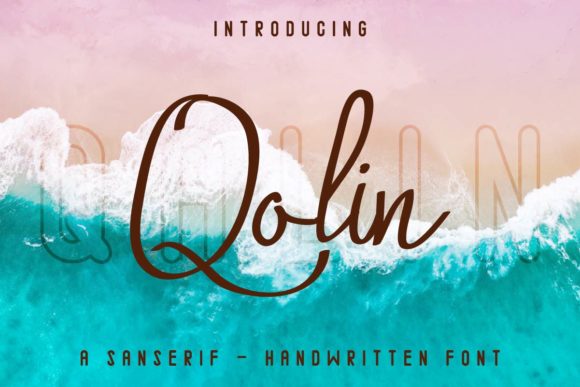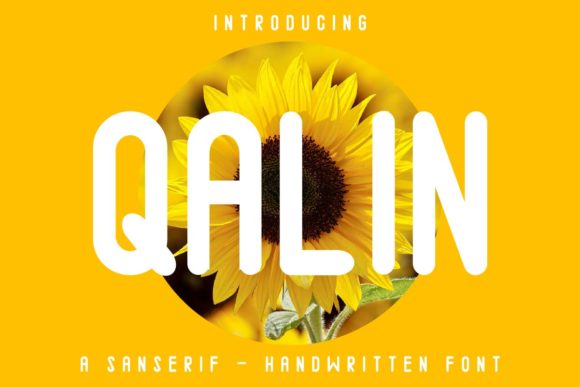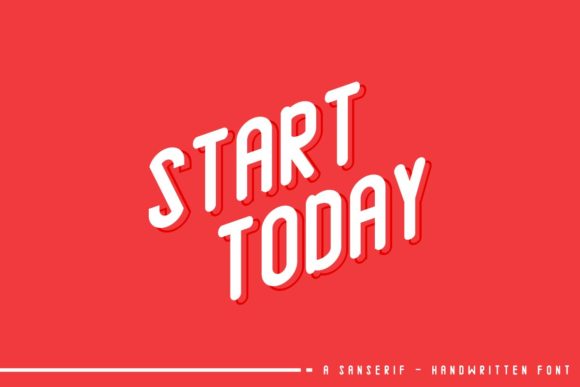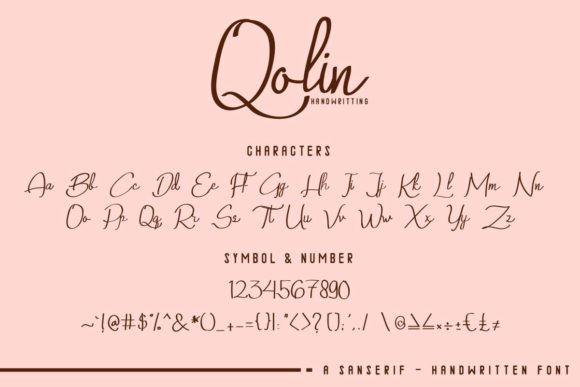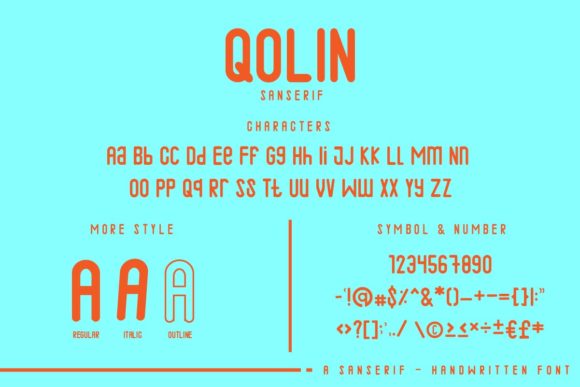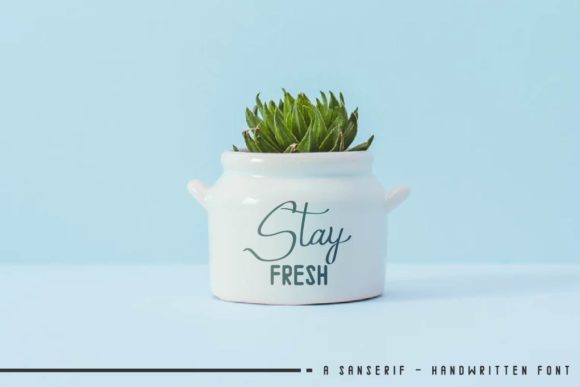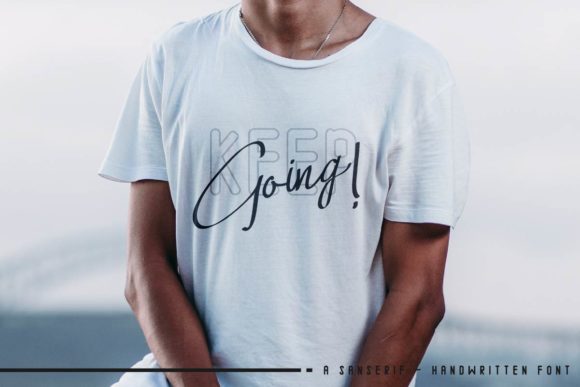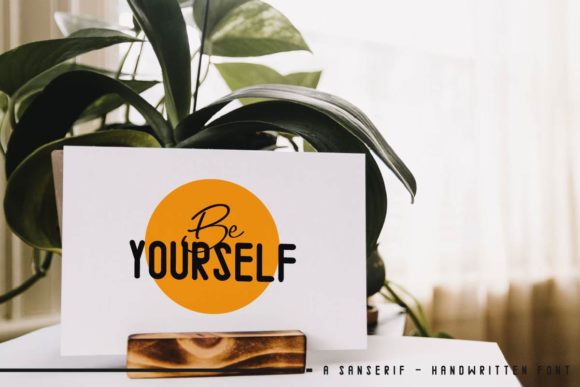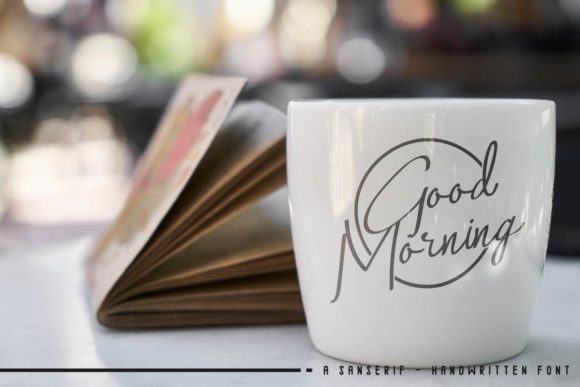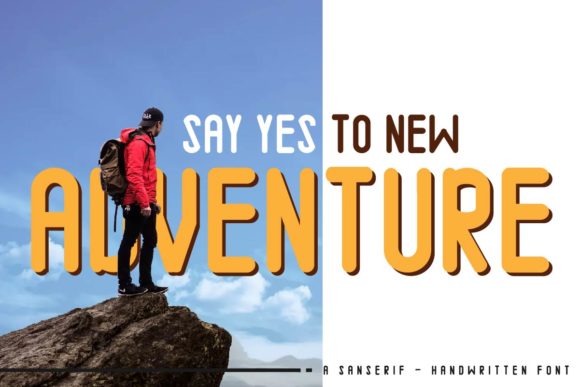
Qalin Duo Font
About Qalin Duo Font
Qalin is a one-of-a-kind font duo with an iconic feel. When combined, these two fonts will turn any design idea into a true standout.